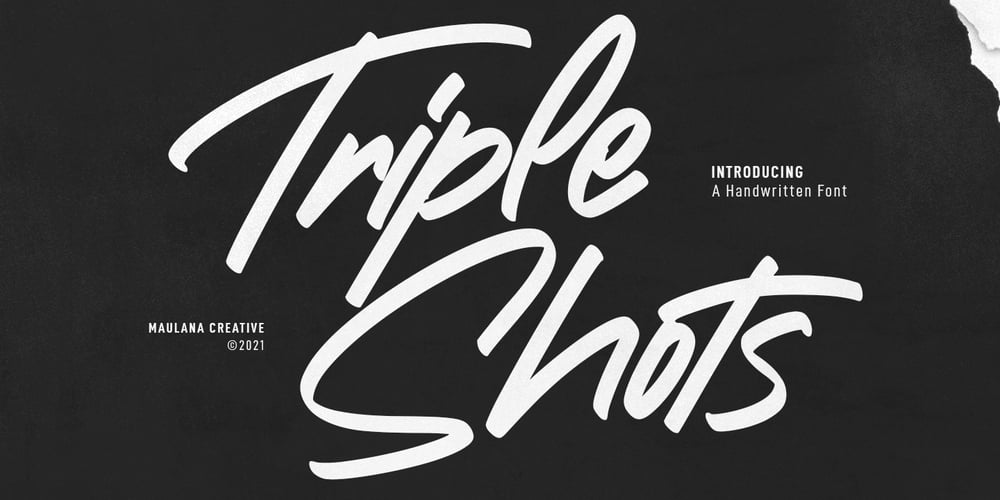
Triple Shots Font Family was designed by Gilang Maulana and published by Maulana Creative. Triple Shots contains 1 styles and family package options. Triple Shots is a casual handwritten display font. With slanted bold felt tip stroke, fun character with a bit of ligatures and alternates. To give you an extra creative work. Triple Shots font support multilingual more than 100+ language. This font is good for logo design, Social media, Movie Titles, Books Titles, a short text even a long text letter and good for your secondary text font with sans or serif. Make a stunning work with Triple Shots font. Cheers, MaulanaCreative